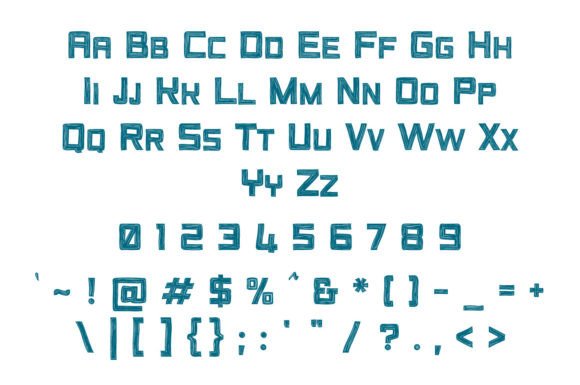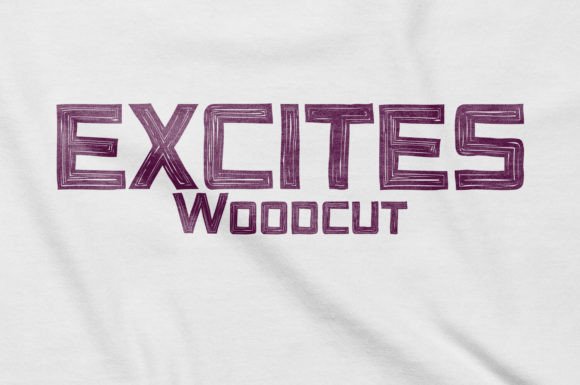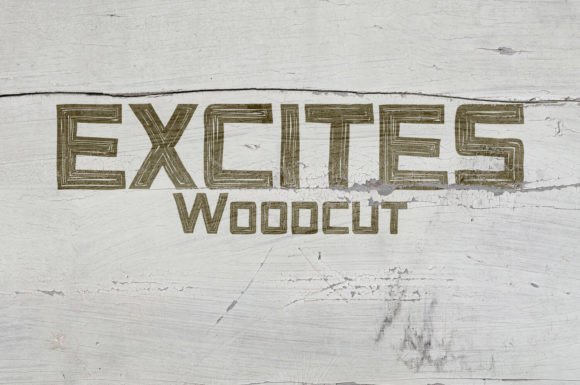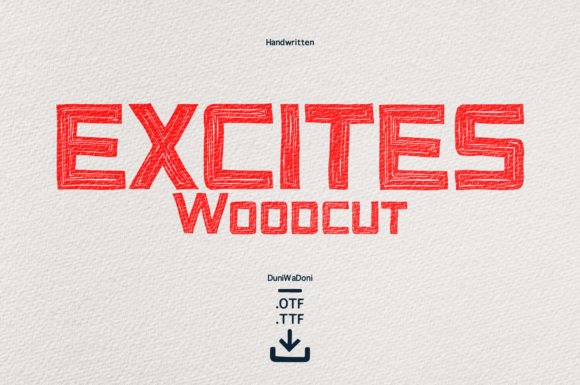
Introducing Excites Woodcut Font: Add a Touch of Rustic Charm to Your Designs
Are you looking for a unique and bold font to add a touch of rustic charm to your designs? Look no further than Excites Woodcut Font. This display font is designed to resemble wood, with letters that feature a wooden pattern, making it perfect for projects that require a natural or earthy feel.
What is Excites Woodcut Font?
Excites Woodcut Font is a display font that is designed to look like it’s made from wood. The font features bold and chunky letters with a wooden texture, giving it a unique and eye-catching appearance. The font is perfect for designers and crafters who want to add a touch of rustic charm to their projects.
Key Features of Excites Woodcut Font
- Wooden Texture: The font features a wooden texture that gives it a natural and earthy feel.
- Bold and Chunky: The letters are bold and chunky, making them perfect for display purposes.
- Rustic Charm: The font has a rustic charm that makes it perfect for projects that require a natural or earthy feel.
- Unique: The font is unique and stands out from other fonts, making it perfect for designers who want to create something different.
Uses of Excites Woodcut Font
Excites Woodcut Font is perfect for a variety of design projects, including:
- Logos: The font is perfect for creating logos for companies that want to convey a natural or earthy feel.
- Headings: The font is perfect for headings and titles, adding a touch of rustic charm to any design.
- Signage: The font is perfect for signage, especially for businesses that want to convey a natural or earthy feel.
- Packaging: The font is perfect for packaging, adding a touch of rustic charm to any product.
Benefits of Using Excites Woodcut Font
There are several benefits to using Excites Woodcut Font, including:
- Unique Look: The font has a unique look that sets it apart from other fonts.
- Easy to Read: The font is easy to read, even at large sizes.
- Versatile: The font is versatile and can be used for a variety of design projects.
- High-Quality: The font is high-quality and will look great in any design.
Tips for Using Excites Woodcut Font
Here are some tips for using Excites Woodcut Font:
- Use it for Display Purposes: The font is perfect for display purposes, such as headings and titles.
- Pair it with a Simple Font: Pair the font with a simple font for body text to create a striking contrast.
- Use it for Large Projects: The font is perfect for large projects, such as billboards and signage.
Excites Woodcut Font is a unique and bold font that is perfect for designers and crafters who want to add a touch of rustic charm to their designs. With its wooden texture and bold letters, it’s perfect for display purposes and can be used for a variety of design projects. Whether you’re creating a logo, heading, or signage, Excites Woodcut Font is a great choice.